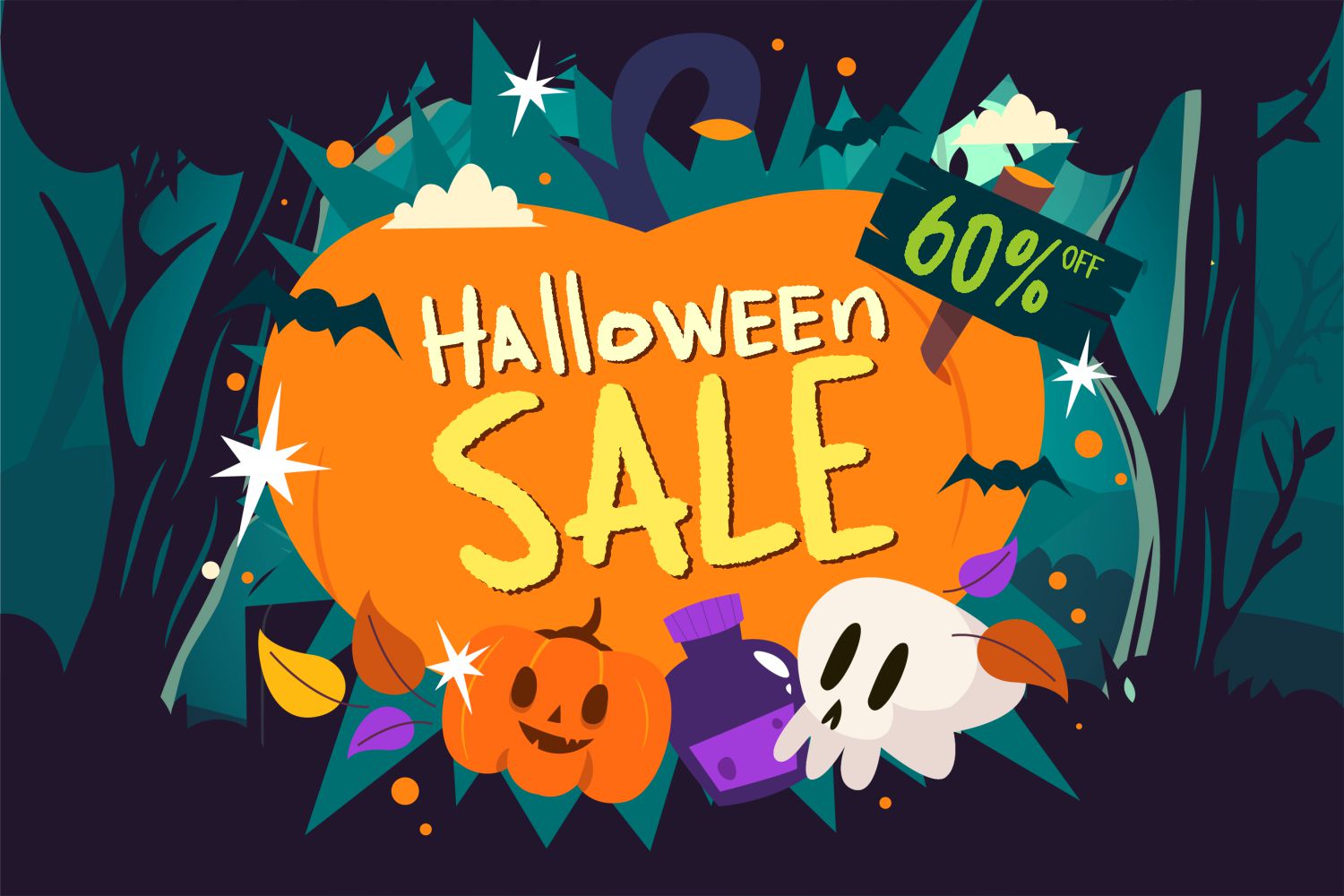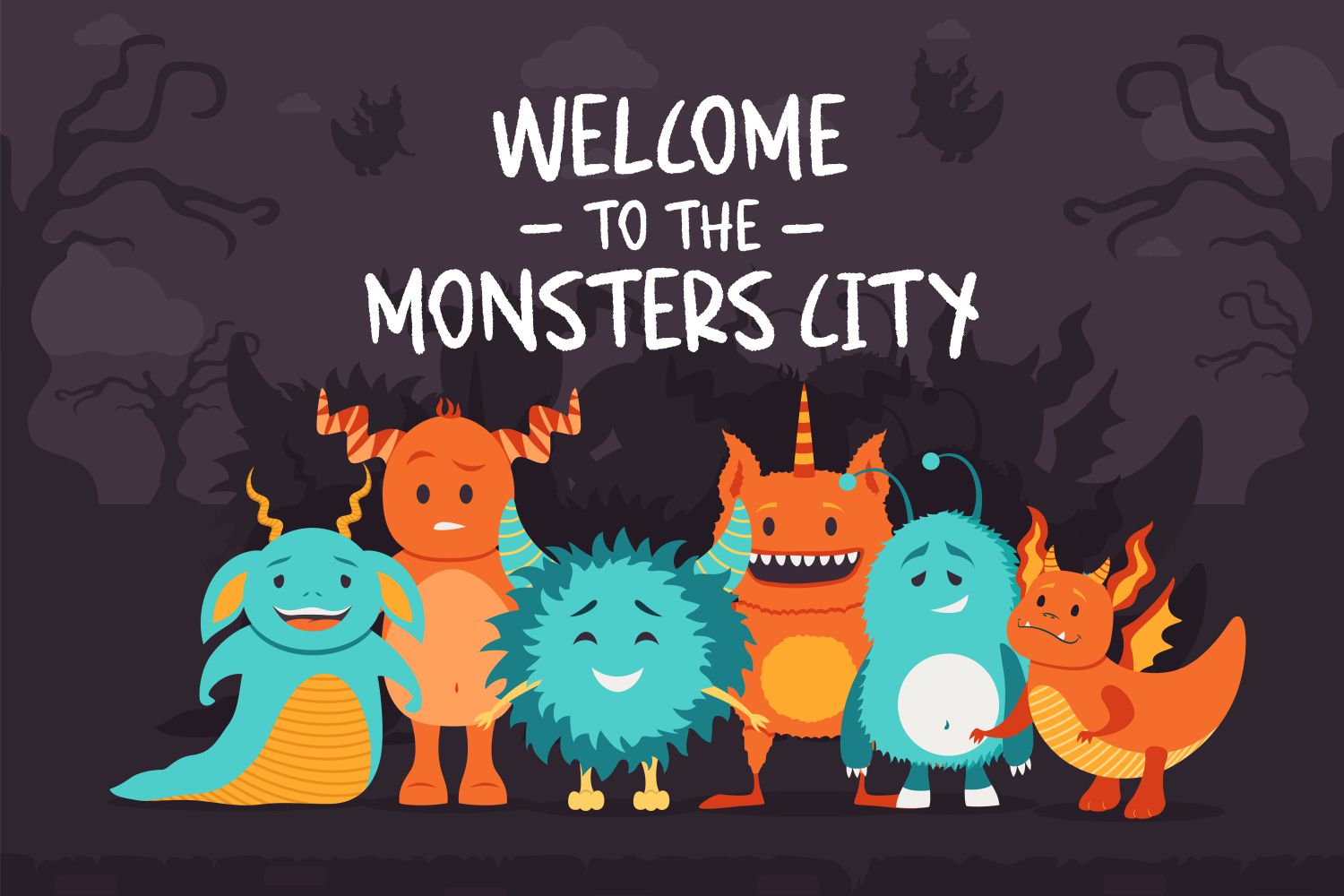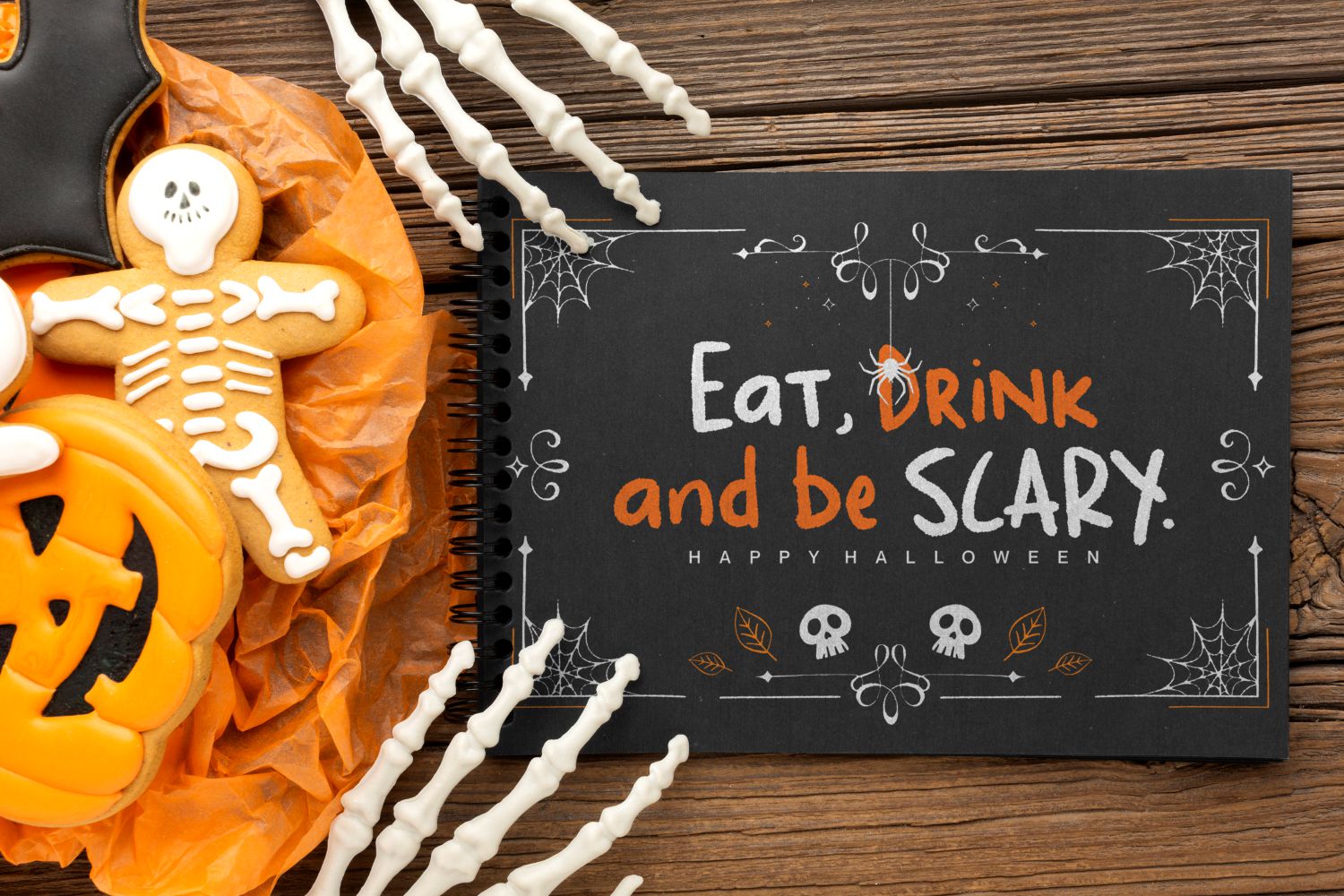
Spooky Whisper Font
Spooky Whisper Display Font
It\’s a casual and spooky display font. It is perfectly suitable for any Halloween-related project or crafty idea! The only limit is your imagination.